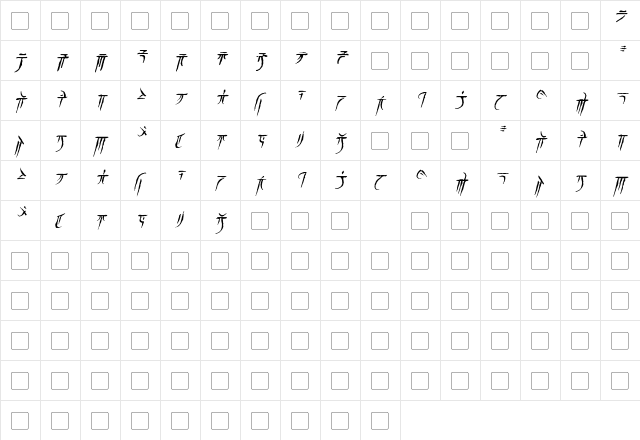
Iokharic Italic
Design Context for Iokharic Typeface
Iokharic is a composed and adaptable typeface that performs quietly and consistently across a wide range of design contexts. Its italic angle brings a sense of urgency and motion to the letterforms.
Pro Tip: Try Iokharic for annotation and caption copy alongside an upright companion — the contrast in angle creates a dynamic but ordered typographic system.